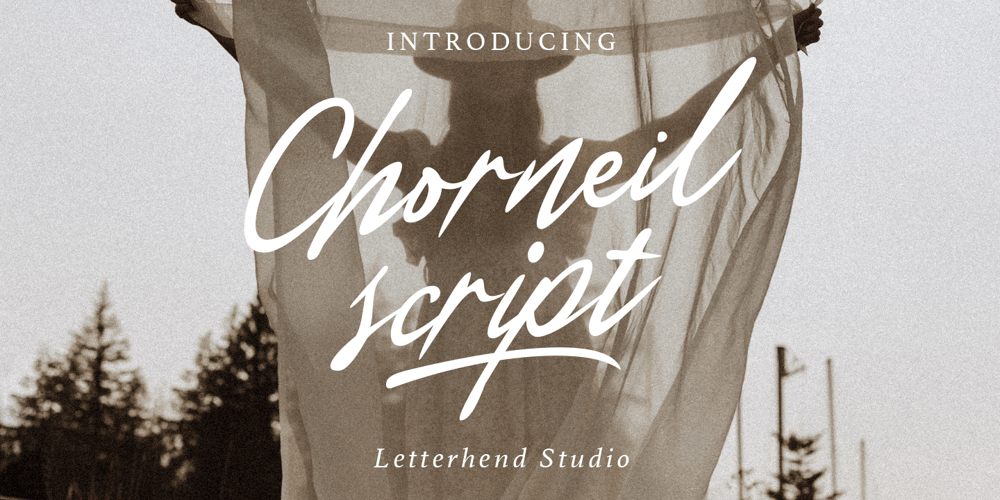
Chorneil Script Font Family was designed by Hendry Juanda and published by Letterhend. Chorneil Script contains 1 styles and family package options. Chorneil Script is a casual script with organic style. This type of font perfectly made to be applied especially in logo, and the other various formal forms such as invitations, labels, logos, magazines, books, greeting / wedding cards, packaging, fashion, make up, stationery, novels, labels or any type of advertising purpose.Features : Uppercase & lowercase Numbers and punctuation Alternates & Ligatures Multilingual PUA encoded